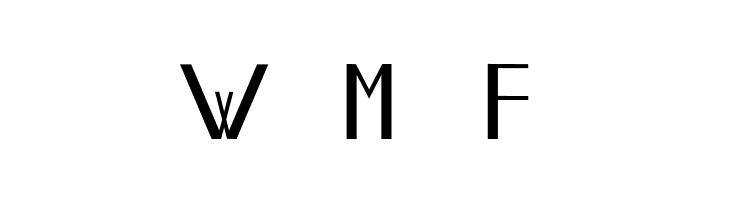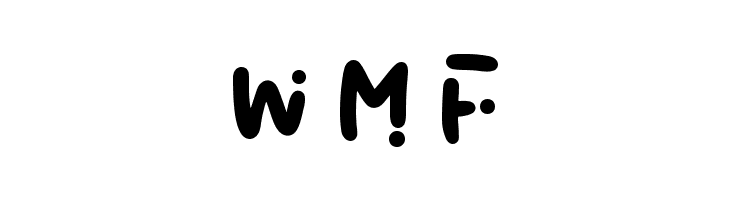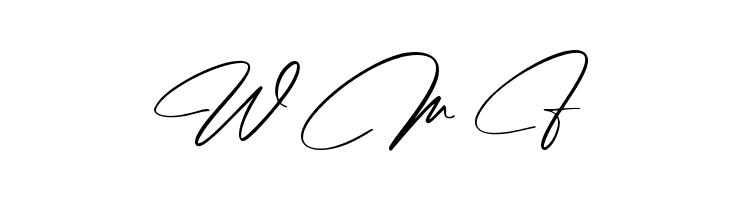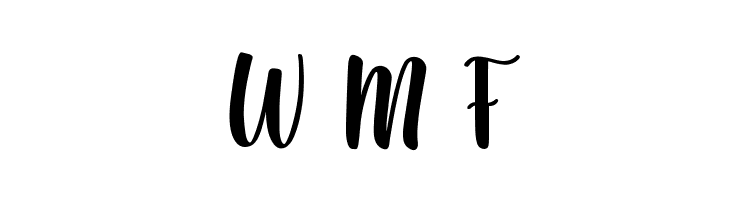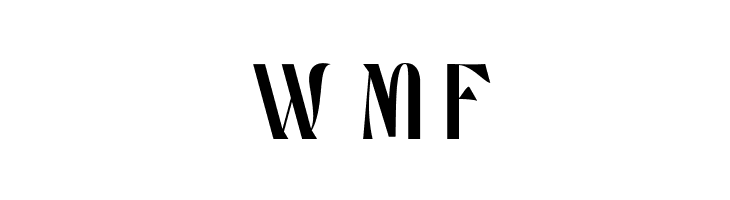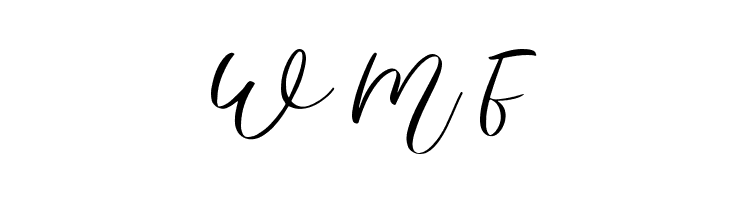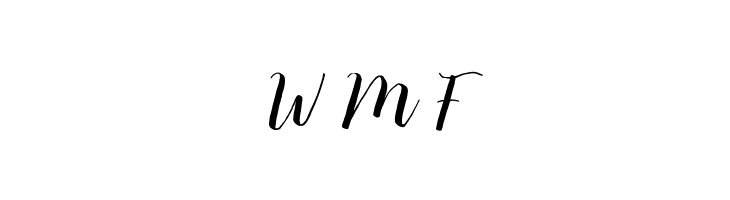
An elegant, cursive script font with fluid, signature-like strokes.
A playful, bold font with rounded, whimsical characters.
A bold, artistic font with striking curves and sharp edges, ideal for decorative use.
A playful, hand-drawn font with bold, flowing strokes and a whimsical style.
A modern, geometric font with clean lines and sharp angles.
A bold, flowing script font with elegant, cursive connections.
Elegant cursive script font with a handwritten style.
A flowing, cursive font with elegant, sweeping strokes and a handwritten appearance.